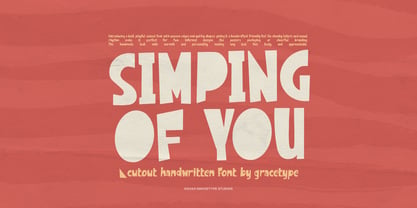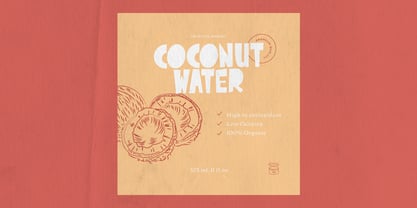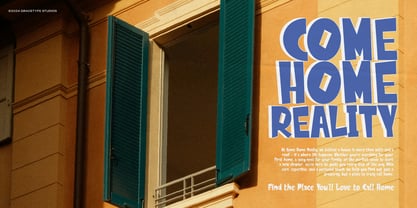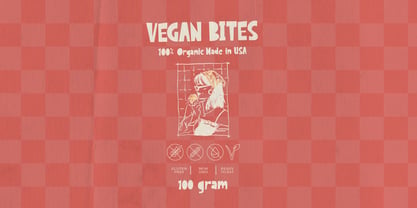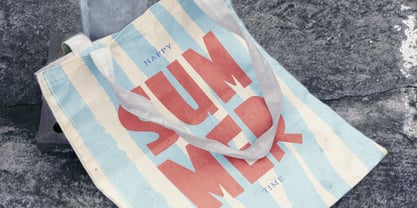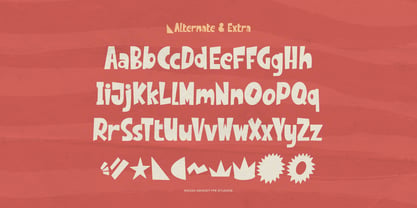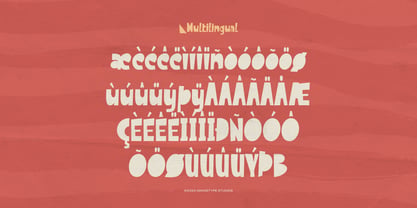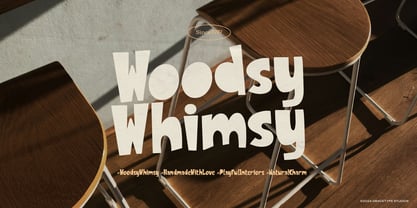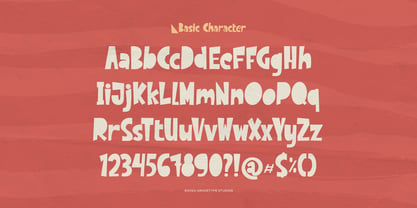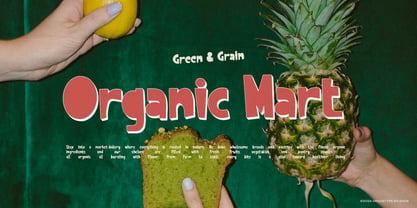
Simping of You
by Tini Fitriani
The Simping of You Font Family was designed by and published by Tini Fitriani. Simping of You contains 1 styles. More about this family
Simping of You | Cutout Handwritten, from Gracetypestudio, suitable for any projects such as: logos, branding projects, homeware designs, product packaging, mugs, quotes, posters, shopping bags, t-shirts, book covers, name card, invitation cards, greeting cards, label, photography, watermark, special events, and all your other lovely projects that need a Cutout Handwritten taste.